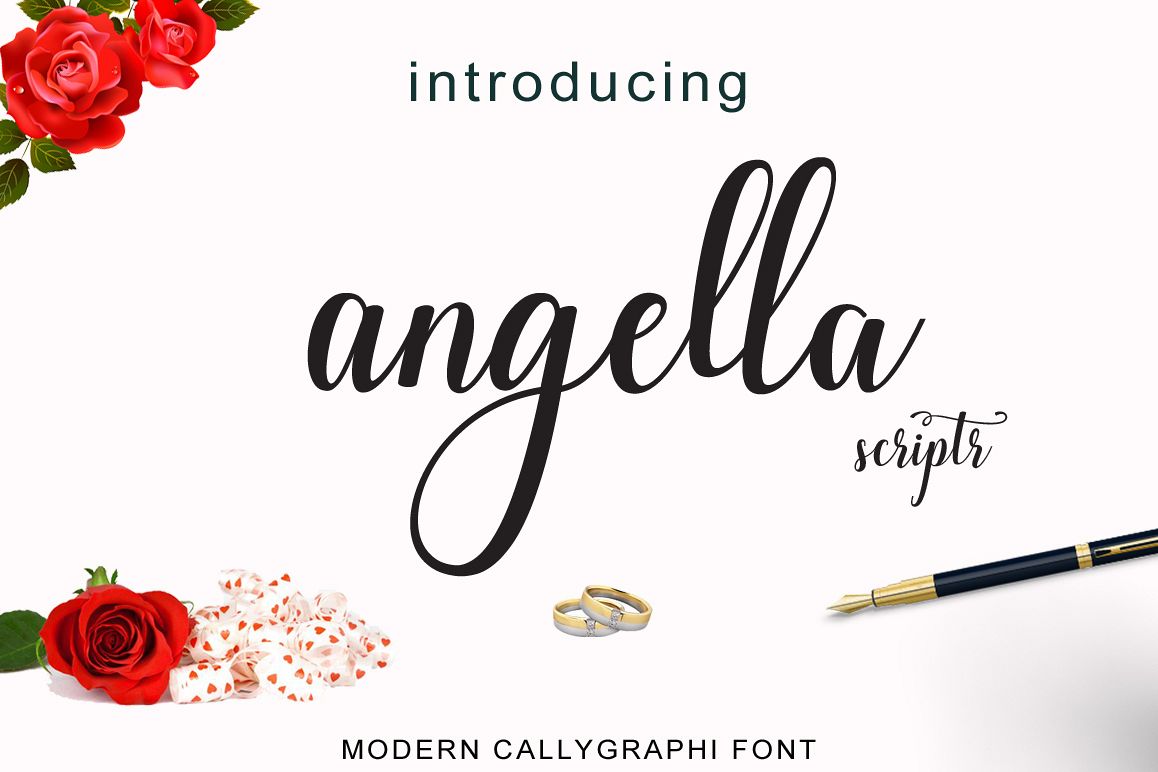
angella script
Introducing:
Angella Script is a stylish calligraphy font that features a varying baseline, classic and elegant touch. Angella Script is suitable use for market design developed at this time, this font has a model Trendy, natural and gentle, with this font you can take advantage of the opportunity in every moment of one wonderful way to highlight the celebration of the feast of your best, because this font will be advocates for purposes such as wedding invitations, party, graduation, birthday, gathering, etc.
Initial Alternates
Terminal Alternates
PUA
Stylistic sets
Ligature
Basic Latin A-Z and a-z
Numbers